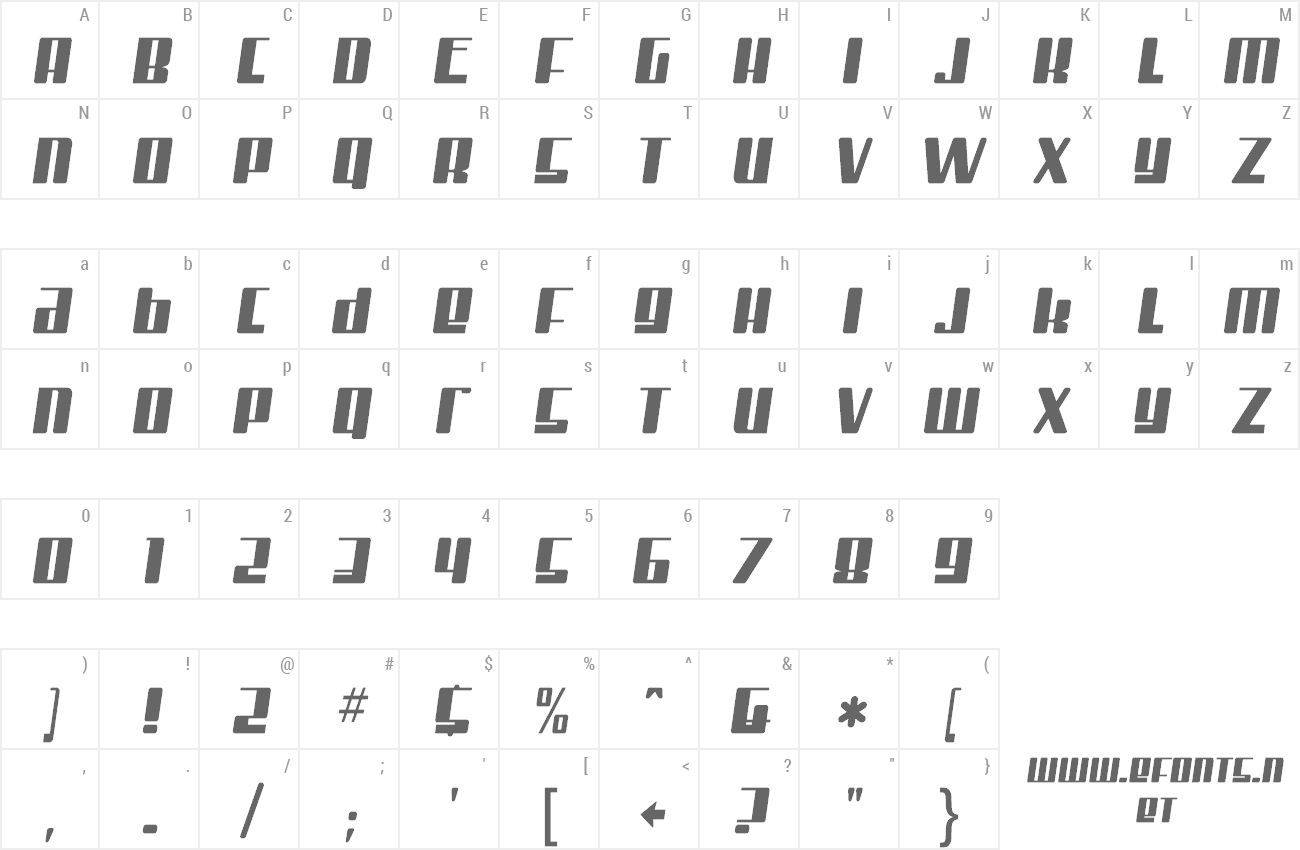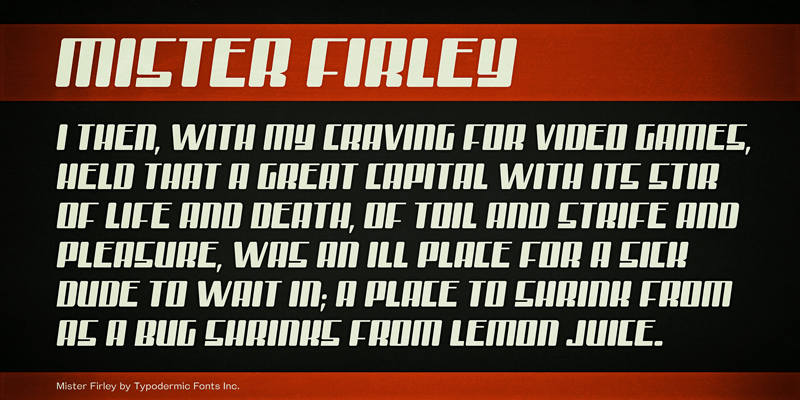
Mister Firley is an industrialized style headline yeller. This font includes a license that allows free commercial use: sometimes referred to as a desktop license. This allows you to install the font on a computer and use it to create posters, web graphics, game graphics, t-shirts, videos, signs, logos and more. Read the license agreement for details. If you'd like to embed this font in an app, ebook, on the web or anything that's not covered by the desktop license agreement, visit the link below. You'll find distributors who offer different types of licenses or you can contact me for help. http://typodermicfonts.com/mister-firley/ |